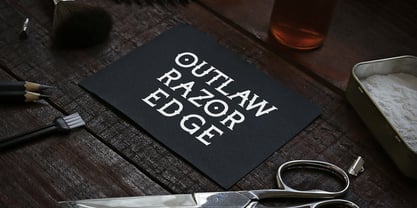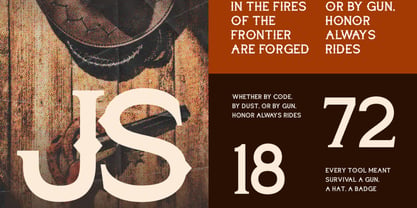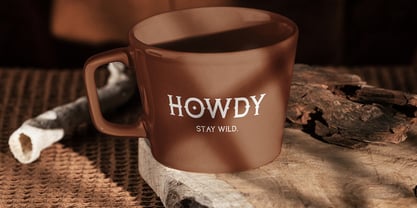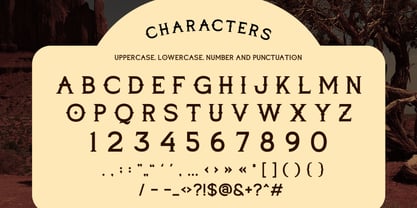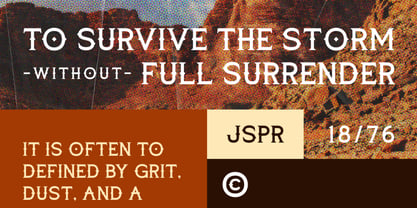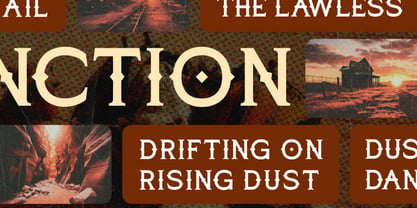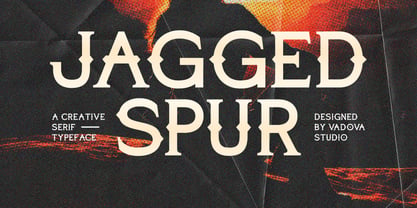
Jagged Spur
Jagged Spur Creative Serif is a rugged Western-style display font forged with grit, boldness, and frontier spirit. Designed to echo the dust, leather, and lawlessness of the old West, this all-caps serif typeface is perfect for vintage posters, cowboy branding, outlaw-themed signage, bar logos, or any design project needing a touch of American grit. With distressed strokes, slab-style curves, and bold personality, Jagged Spur evokes the legacy of wild trails and silent loyalty where legends are born from dust and defiance. Relevance and Use Jagged Spur is perfect for western font, cowboy font, rustic, serif fonts, all caps, vintage script, bold condensed, outlaw font, wild west font, signage, bar branding, retro serif, dusty serif, horror western, saloon font, americana font, heritage brand, outdoor font, outlaw style, rugged branding, masculine typeface, display serif, western badge, frontier font, poster font.